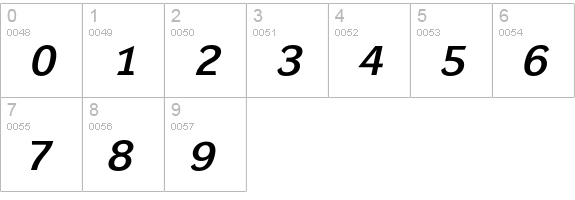
Dynamo Italic D X E Font Details
Dynamo Italic D X E is a distinctive, italic variant in the Dynamo typeface family \xE2\x80\x94 well suited to design and typography projects.
Dynamo Italic D X E is a sleek and modern font that exudes elegance and sophistication. Its unique italic design gives it a dynamic and energetic feel, making it perfect for a wide range of design projects. The letters are meticulously crafted with precision and style, creating a sense of movement and fluidity. This font is versatile and can be used for various purposes, from branding to editorial design. Whether you're creating a logo, poster, or website, Dynamo Italic D X E will add a touch of contemporary flair to your project. Best of all, this font is available for free download at FontsMarket.com. So why wait? Add Dynamo Italic D X E to your font collection today and elevate your designs to the next level.